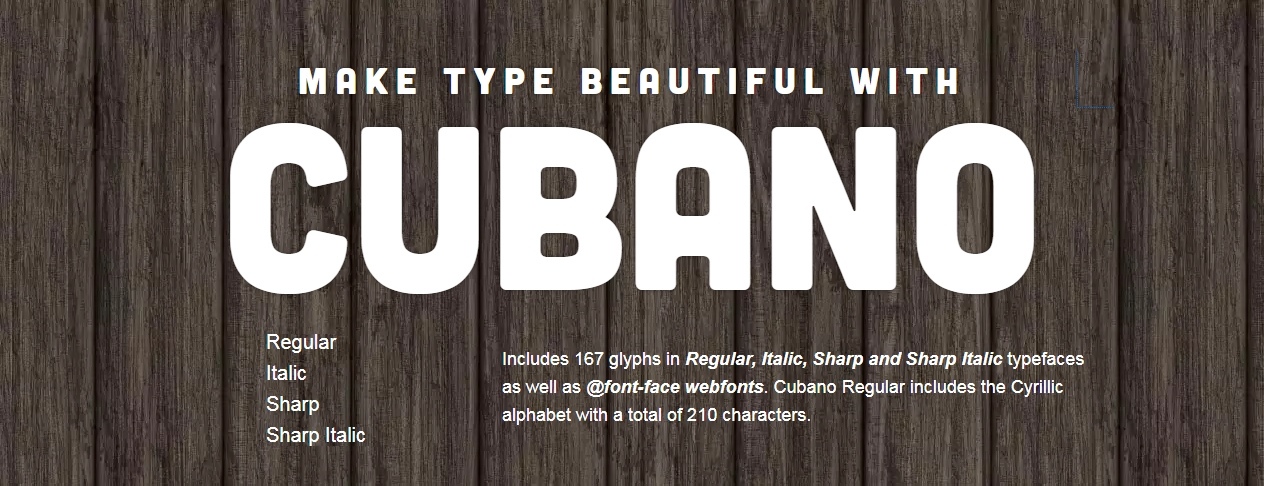
Cubano Font is perfect for Latin music promotions, Cuban restaurant branding, tropical nightclub materials, salsa dance event posters, Caribbean tourism campaigns, vintage Havana-themed designs, Latin cultural festivals, rum distillery packaging, cigar lounge signage, and authentic Cuban heritage projects.
What makes Cubano Font so exciting is its vibrant embodiment of Cuban cultural passion and Latin rhythmic energy that captures the soulful spirit of Havana and the infectious joy of Caribbean culture through boldly expressive typography. This culturally inspired typeface features robust letterforms with Latin proportions and rhythmically influenced character variations that immediately convey warmth, passion, and the irresistible energy of Cuban musical tradition. The font's passionate construction and culturally rich aesthetic create an instant sense of Latin celebration and authentic Caribbean charm, making it ideal for projects that need to communicate cultural vibrancy, musical passion, and the life-affirming power of Cuban heritage to audiences seeking authentic Latin experiences and meaningful cultural connections.
The Cubano Font family typically includes multiple passionate weights and Latin styles, often featuring regular, bold, and ultra-bold variations along with rhythmically flowing italic versions. Cuban-inspired font collections frequently offer additional cultural elements such as musical symbols, Caribbean ornaments, and Latin decorations that enhance the authentic tropical aesthetic and provide designers with comprehensive tools for creating genuinely respectful and culturally appropriate communications.
Cubano Font Free Download offers designers an exceptional resource for creating culturally authentic and passionately compelling designs. Whether you're developing materials for Latin entertainment venues, crafting branding for Cuban restaurants, or designing communications for Caribbean tourism that celebrates Cuban culture and Latin musical heritage, this font delivers the passionate presence that Latin culture enthusiasts and Caribbean-minded audiences appreciate and find deeply inspiring.
The Cuban nature of Cubano Font makes it particularly effective for targeting demographics that value Latin culture and Caribbean lifestyle in their entertainment and cultural choices. Latin marketers and cultural event organizers will find this font especially valuable for materials that must establish immediate cultural credibility and connect with audiences seeking authentic Cuban experiences and meaningful Latin cultural engagement.
What sets Cubano Font apart is its ability to convey Cuban cultural authenticity while maintaining the energy necessary for effective entertainment and hospitality communication. This balanced characteristic makes it suitable for both traditional Cuban cultural applications and contemporary Latin fusion contexts where projecting cultural heritage and maintaining modern appeal must work together harmoniously.
Professional designers recognize that Cubano Font brings invaluable Latin credibility to projects across industries including entertainment, hospitality, cultural tourism, and authentic Caribbean experiences. Its Cuban character and passionate appeal make it essential for organizations whose mission centers on celebrating Latin culture, promoting Cuban heritage, and creating meaningful connections between traditional Caribbean values and contemporary cultural appreciation.
The thoughtfully crafted cultural authenticity of Cubano Font ensures consistent Latin messaging across all Cuban-focused communication applications while honoring the fundamental importance of cultural respect and authentic representation in Caribbean typography.